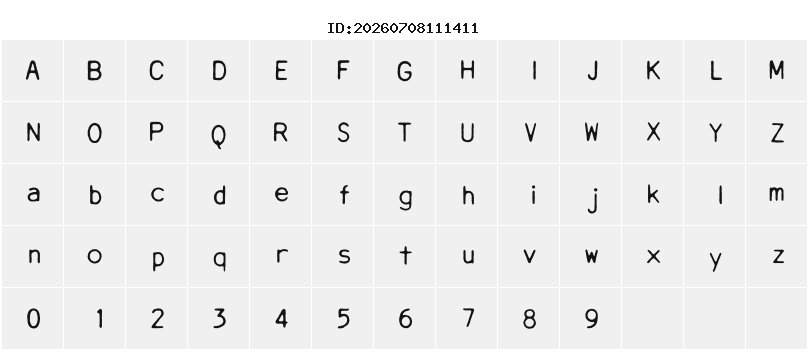
• Font Name: DaisyWheel
• Designer: Volker Busse, Berlin
About DaisyWheel.otf
DaisyWheel.otf is a modern, elegant sans-serif font designed for ultimate readability and visual harmony. Perfect for branding, headlines, web design, and print materials.